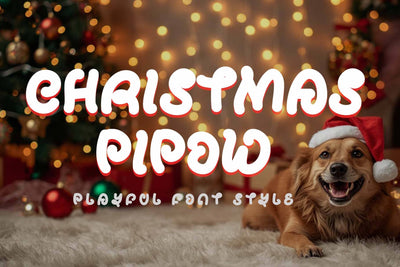
Christmas Pipow
"Christmas Pipow" is a cute and unique display font. It features uppercase and lowercase letters, numerals, punctuation, and multilingual support. It's perfect for Christmas, winter, Thanksgiving, logos, stickers, prints, banners, posters, comics, cartoons, valentine, spring, summer, Halloween, Easter, weddings, magazines, gifts, decorations, and more.